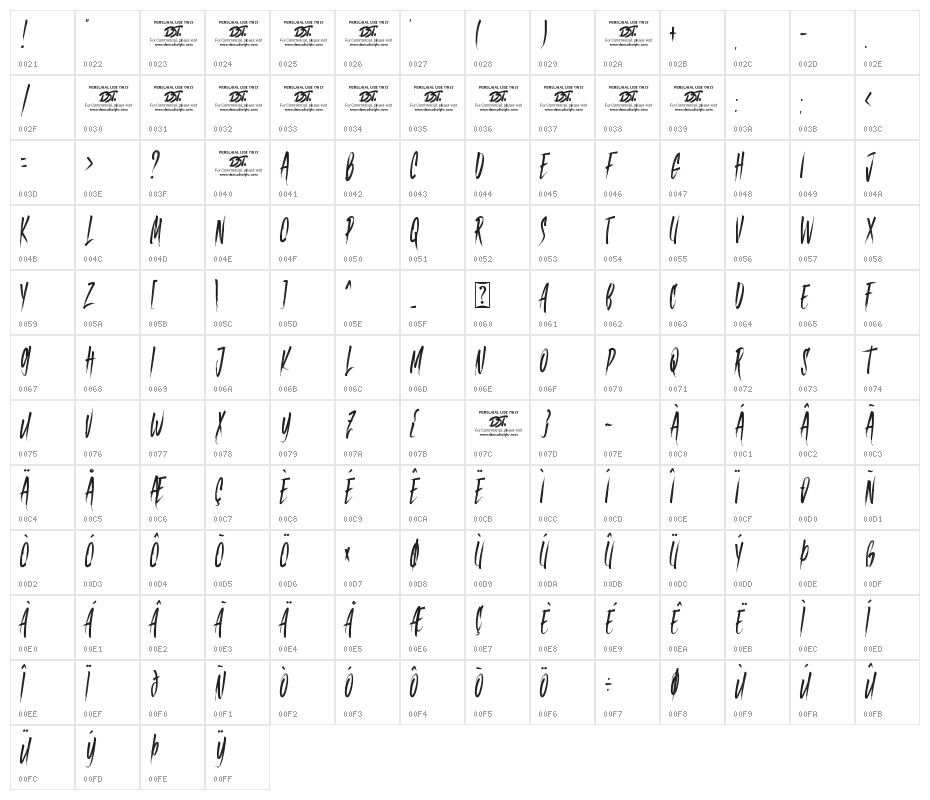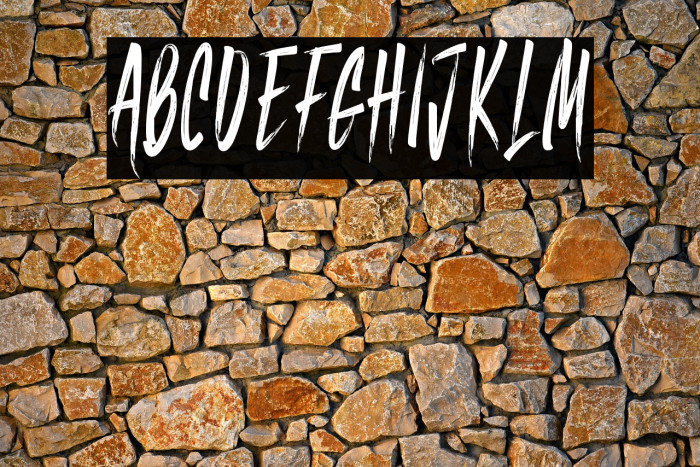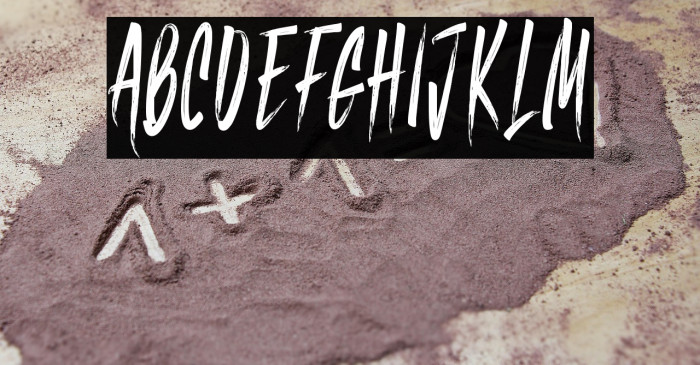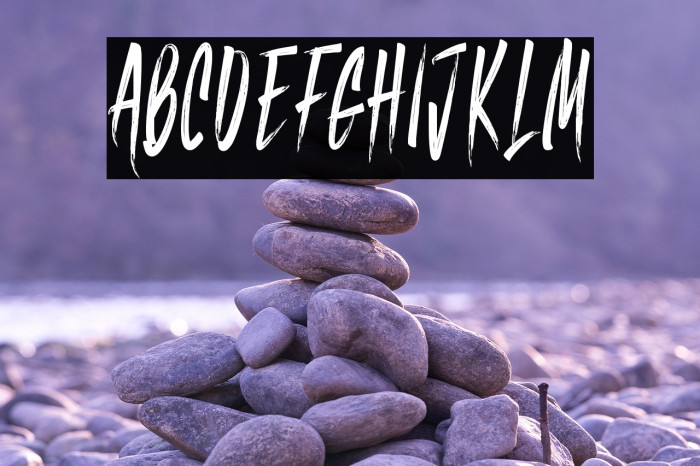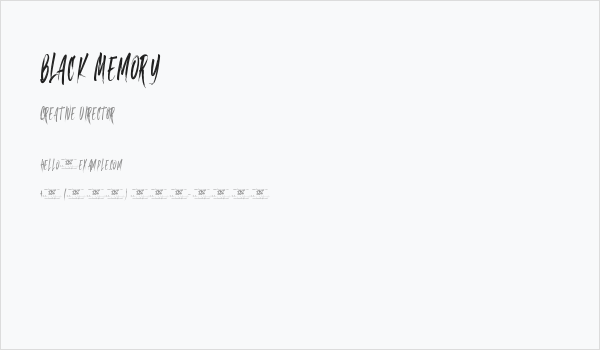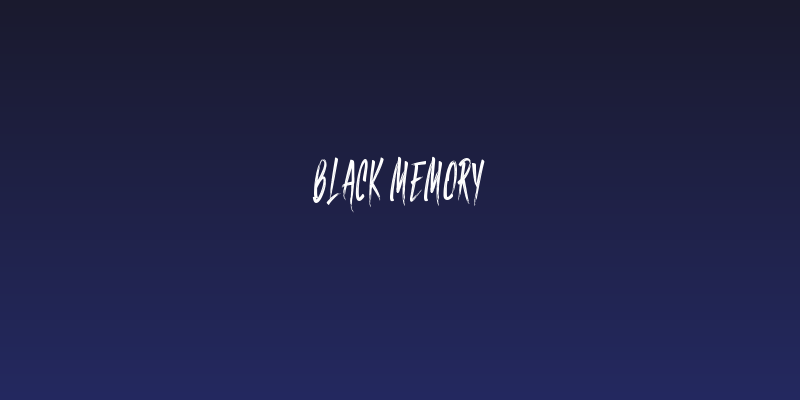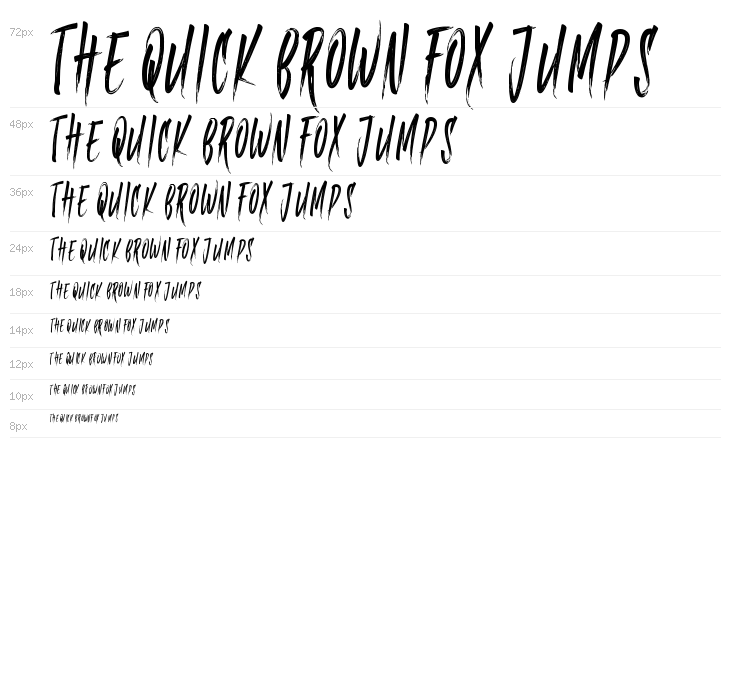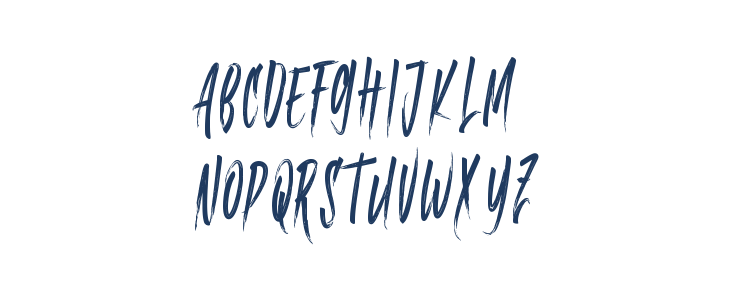
Black Memory Font
Black Memory Description
This font features a bold and expressive brush style, characterized by its dynamic and energetic strokes. The letters have a hand-painted appearance, with varying thickness and a slightly rough texture that adds to its artistic flair. The uppercase and lowercase characters maintain a consistent style, with elongated forms and a slight slant, giving the text a sense of movement and fluidity. The numbers and special characters are crafted with the same attention to detail, ensuring a cohesive look across all elements. This font is perfect for projects that require a touch of creativity and individuality.